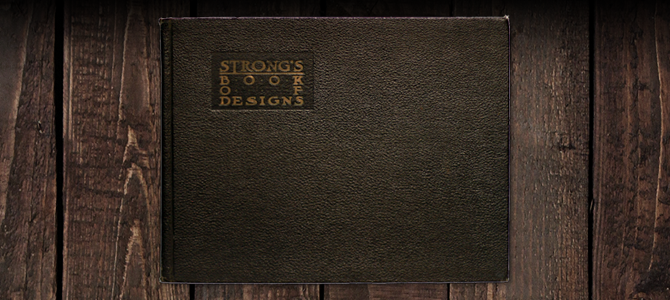
Strong's Book of Design - C.J. Strong - 1917
Easily one of the most sought books of its kind, Strong's Book of Designs is a formidable contender for being the best sign painting book ever written when taking both quality and quantity into consideration. With nearly 100 pages of half color, half black and white designs this book covers everything from alphabets to layouts, airbrushing, ornamentation, coloring, and beyond - a definite must-have for any serious collector.